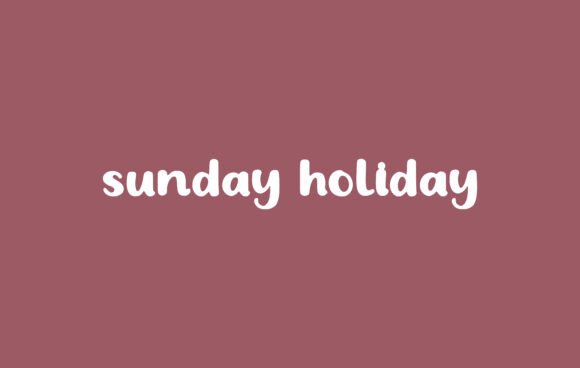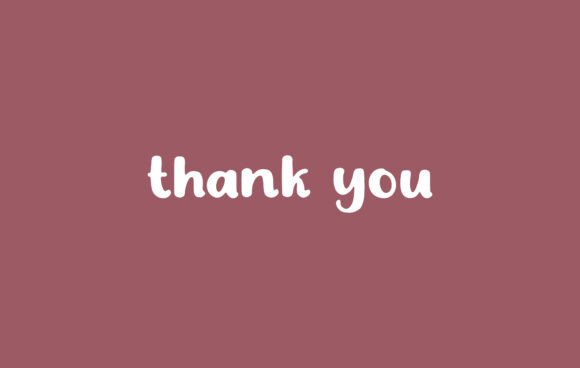
Introduction to Sawyer Font
As a designer, there’s nothing quite like the thrill of bringing a creative project to life. You’re brainstorming ideas, pouring over design resources, and searching for the perfect font to make your vision stand out. And then, you stumble upon it – the perfect combination of style and sophistication that elevates your entire design. For many of us, that moment is when we discover the Sawyer Font.
This authentic handwritten font has a romantic touch that’s sure to captivate your audience. Expertly designed to be a true favorite, the Sawyer Font is a high-quality design resource that’s perfect for a wide range of creative projects. From magazine headlines to social media posts, wedding invitations to branding materials, this versatile font is a must-have for any designer looking to take their work to the next level.
Sawyer Font
- Unique characteristics: bold and modern style, suitable for headings and titles.
- Perfect for designers and artists looking for a modern and bold font to enhance their creative project.
Honest Review: Sawyer Font
I recently had the chance to work with the Sawyer Font, and I must say it’s a solid addition to any designer’s toolkit. This free download has been a game-changer for my creative projects, offering a unique and versatile font that can add a touch of sophistication to any design.
One of the standout features of the Sawyer Font is its high-quality design. The font is available in a range of weights and styles, making it perfect for a variety of design applications. I particularly love using the transparent background option to create a sense of depth and dimension in my designs.
Here are some of the things that work well with the Sawyer Font:
- ✨ Unique and versatile design
- ✨ High-quality font with a range of weights and styles
- ✨ Transparent background option for added depth and dimension
That being said, there are a few limitations to consider:
- ⚠️ Limited character set, which may not be suitable for extended text-based projects
- ⚠️ May not be as readable at small font sizes
Overall, I’m really impressed with the Sawyer Font. It’s a great resource for designers looking to add some creativity and sophistication to their projects. Just be aware of the limitations, and you’ll be all set to create some amazing designs.
Sawyer Font
The Sawyer Font is ideal for:
1. Creative projects, such as graphics and illustrations.
2. Branding and marketing materials, such as logos and business cards.
3. Digital designs, including social media graphics and website content.